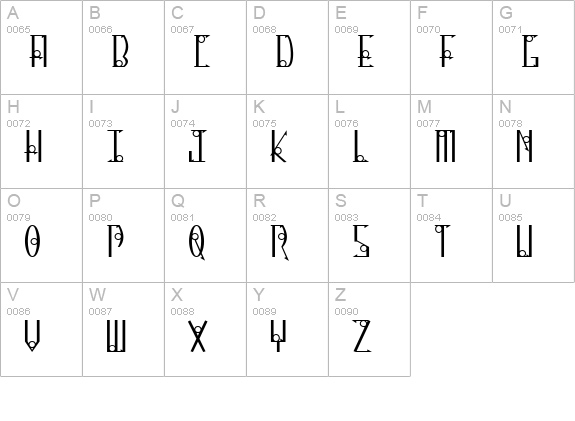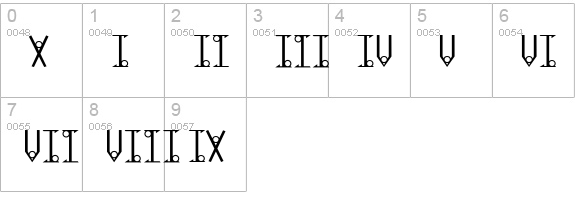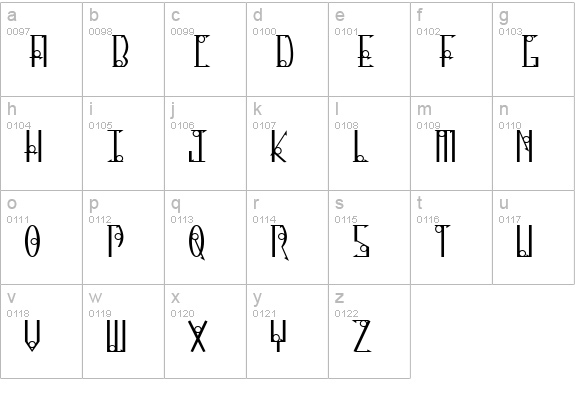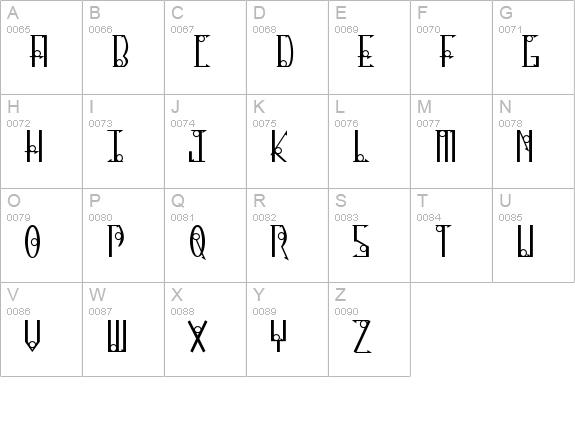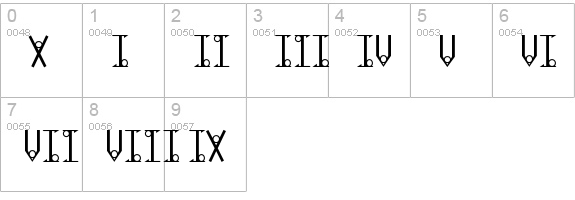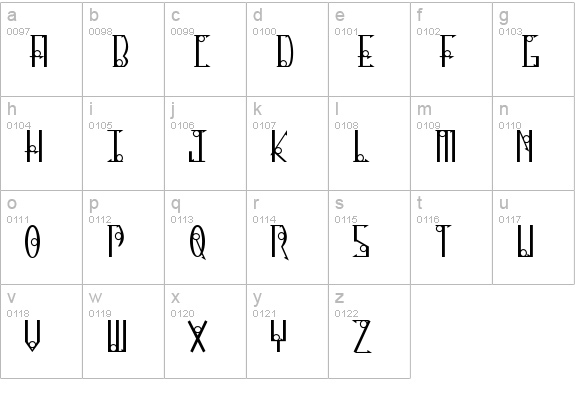
Thirteen O Clock Font Details
Thirteen O Clock font is a stunning display font that adds a touch of mystery and elegance to any design project. With its unique and intricate letterforms, this font is perfect for headlines, titles, logos, and more. Its bold and distinctive style captures attention and leaves a lasting impression. What sets Thirteen O Clock font apart is not only its striking design, but also the fact that it is available for free. Yes, you read that right - this incredible font can be freely downloaded at FontsMarket.com. This means that you can enhance your designs without any additional cost, making it an ideal choice for both personal and commercial projects. Whether you're working on a poster, website, or branding materials, Thirteen O Clock font will effortlessly elevate your design to new heights. Its versatility allows it to be used in a variety of contexts, from modern and edgy to vintage and classic. The attention to detail in Thirteen O Clock font is truly remarkable. Each character is meticulously crafted, with clean lines and intricate flourishes that add a touch of sophistication. The result is a font that exudes elegance and professionalism, making it a valuable asset for any designer or creative professional. With Thirteen O Clock font, you have the power to transform your design into a visual masterpiece. So why wait? Head over to FontsMarket.com and download this incredible font for free today. Unleash your creativity and elevate your designs with the captivating beauty of Thirteen O Clock font.